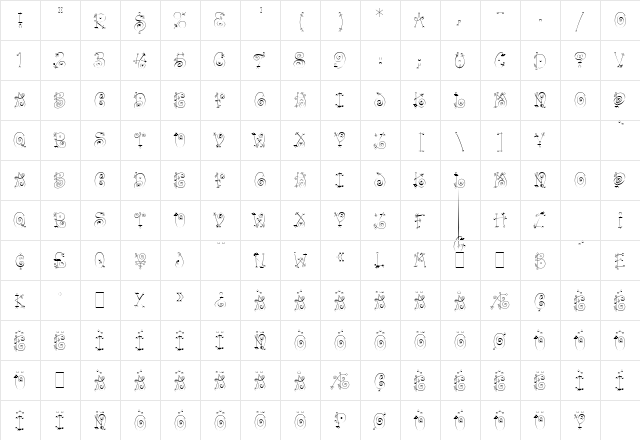
Bang LET Plain
Design Context for Bang LET Typeface
Bang LET is a composed and adaptable typeface that performs quietly and consistently across a wide range of design contexts.